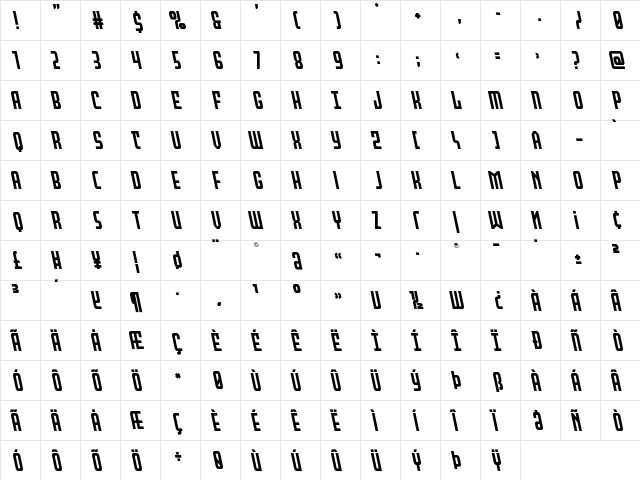
Peace & Houston Leftalic Regular
Design Context for Peace & Houston Leftalic Typeface
Peace & Houston Leftalic takes a measured approach to typography — its balanced proportions and neutral character make it a reliable workhorse for both digital and print work. The slanted form adds forward momentum and visual energy.